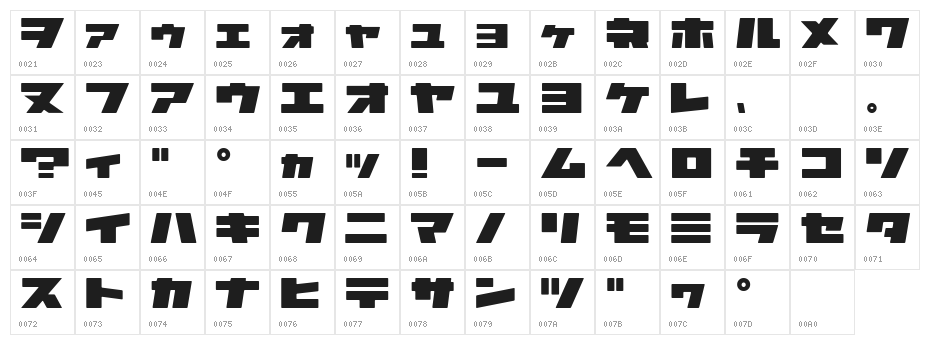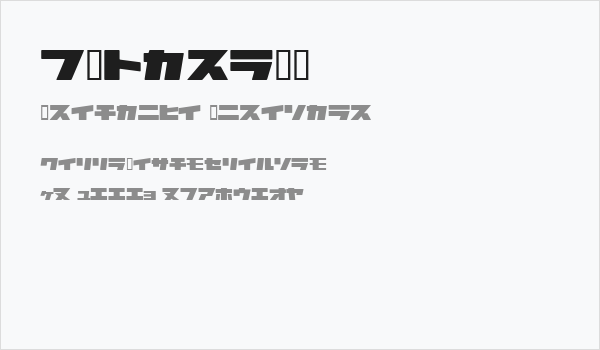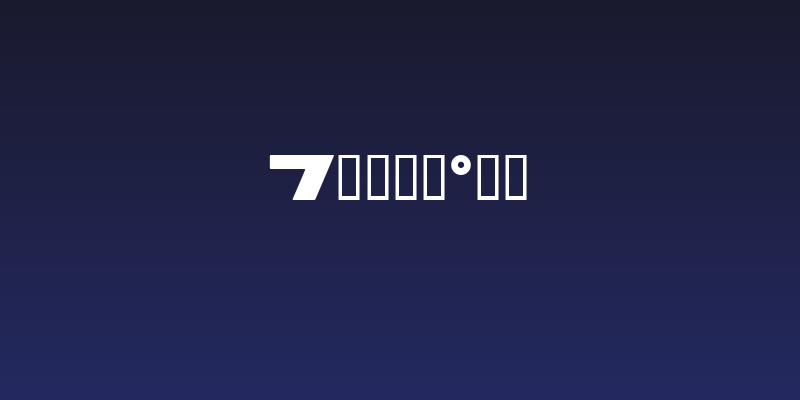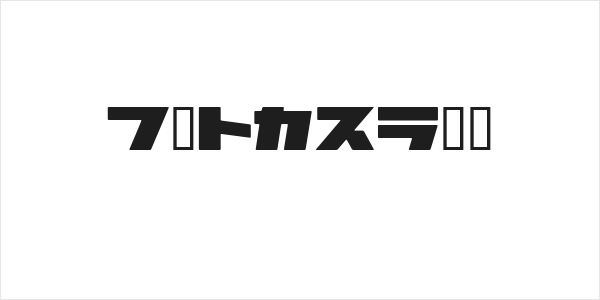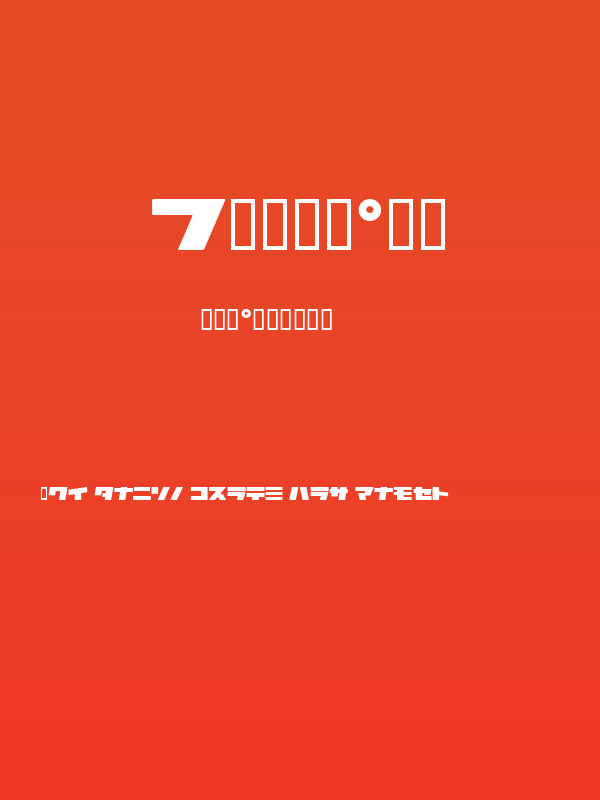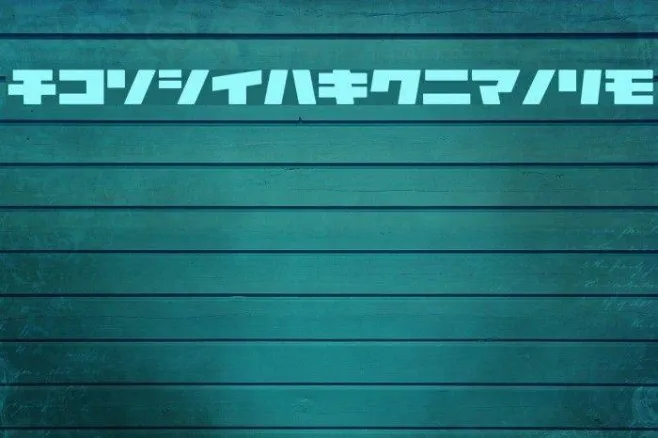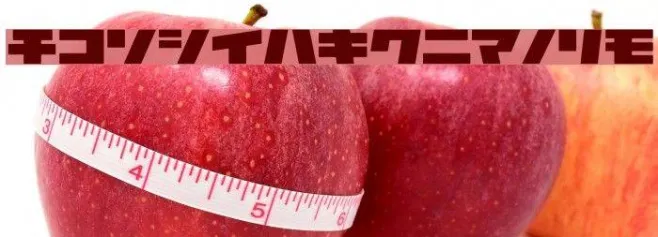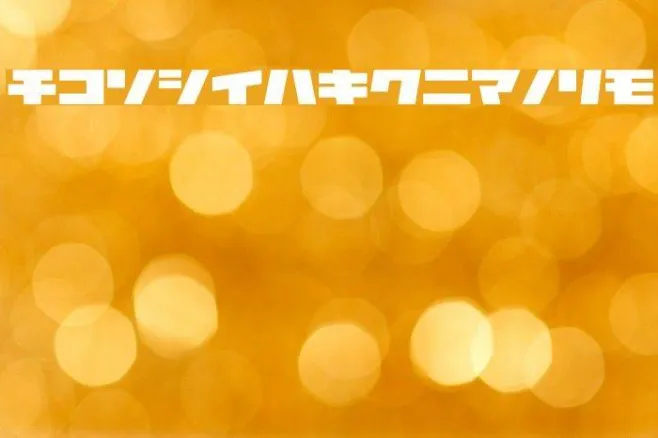
2AstroKT Font
2AstroKT Description
This font features bold, geometric shapes with a distinctly modern and futuristic aesthetic. The characters are constructed with thick, uniform strokes, giving them a strong presence on the page. The design is angular, with sharp edges and a blocky appearance, making it ideal for attention-grabbing headlines. The uniformity in stroke width across all characters provides a cohesive look, while the wide character spacing ensures readability even at smaller sizes. This font's unique style is well-suited for projects that require a contemporary and impactful visual identity.